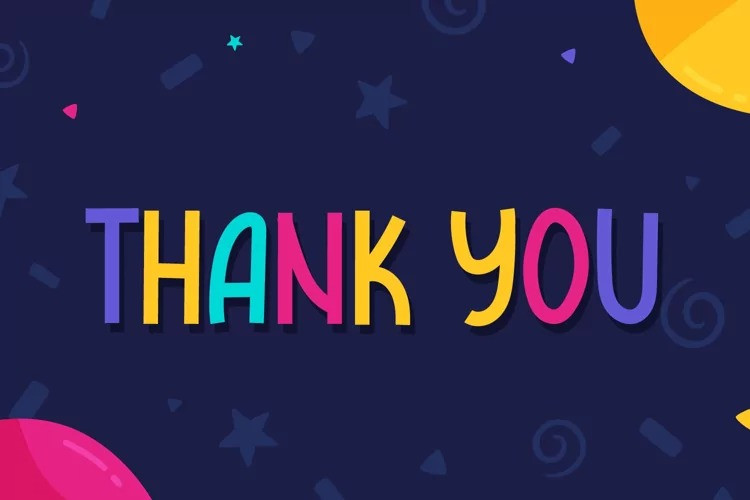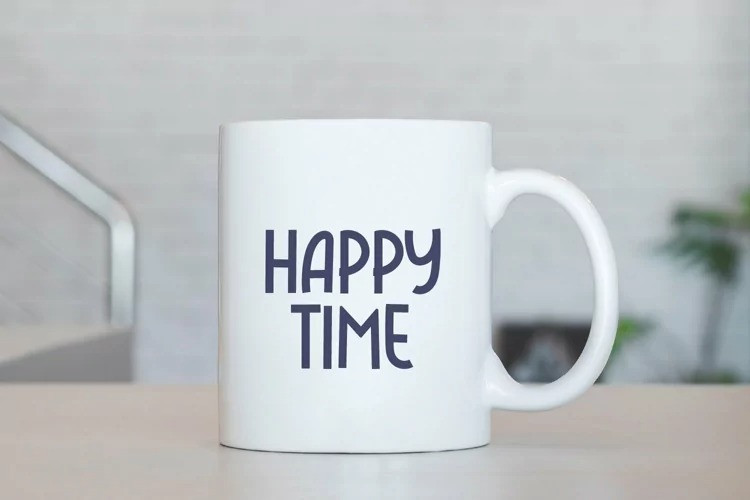
Kidstoy Font
Kidstoy Display Font is a fun and quirky display font that fits perfectly into anything. Its casual charm makes it look very down to earth, easy to read and, in the end, very versatile.Add this beautiful display font to your every creative idea.
This font is perfect for quotes, shirt designs, websites, branding, children’s designs, blogs, logos, invitations and more!